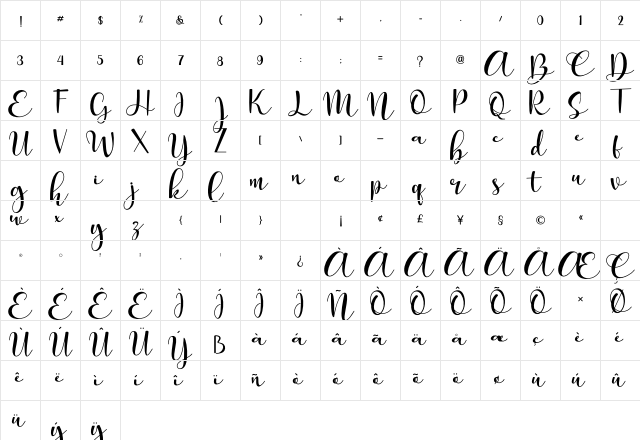
Sunflowers Regular
| Foundry | eknoji |
| Designer | eknoji |
Design Context for Sunflowers Typeface
Sunflowers is a composed and adaptable typeface that performs quietly and consistently across a wide range of design contexts.